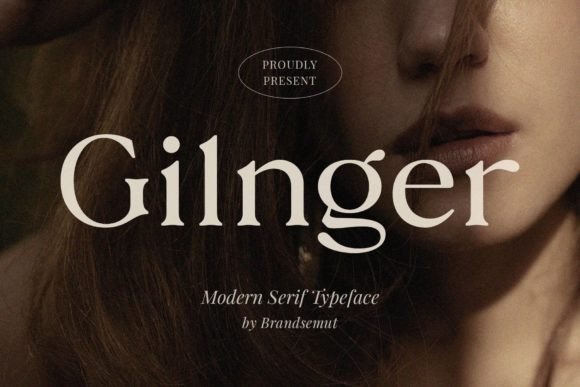
Unleash Your Creativity with the Timeless Gilnger Font
Have you ever found yourself staring at a blank page, waiting for the perfect font to bring your design to life? For many creatives, that moment is a familiar one. It’s the moment when everything comes together, and the right font is the missing piece that takes your design from good to great.
Enter Gilnger Font, a stylish and elegant serif font that’s perfect for creating stunning visual content. Whether you’re designing wedding invitations, social media posts, or beautiful stationery art, Gilnger Font is the perfect choice. Its versatility and timeless style make it a valuable asset for any designer looking to elevate their work.
With Gilnger Font, you’ll have the freedom to express your creativity and bring your vision to life. Its elegant design and wide range of applications make it an essential tool for any designer looking to take their work to the next level.
Gilnger Font Key Features
- Unique Characteristics: Gilnger Font features a distinctive, modern design with clean lines and geometric shapes, making it ideal for minimalist and contemporary designs.
- Character Set: Includes a wide range of characters, including uppercase and lowercase letters, numerals, punctuation marks, and special characters.
Gilnger Font Review
I recently had the chance to work with the Gilnger font, and I must say it’s a unique and intriguing choice. Here’s my honest review of this font.
- The Gilnger font has a great balance of modernity and elegance, making it suitable for a wide range of design projects.
- The font is highly customizable, with many variations in terms of style and weight.
- The character set is comprehensive, including all the necessary symbols and glyphs.
- The font is highly legible, even at small sizes.
- The Gilnger font may be too avant-garde for some designers, and its unconventional design may not appeal to everyone.
- The font may not be suitable for projects that require a more traditional or conservative look.
- The font is not ideal for body text, as its unique style may be overwhelming in large quantities.
The Gilnger font is a bold and innovative choice that can add a touch of sophistication to any design project. While it may not be suitable for every project, it’s definitely worth considering for those who want to make a statement. Overall, I’d give the Gilnger font 4 out of 5 stars.
Tips for Getting the Most Out of Gilnger Font
To get the most out of the Gilnger font, use it in combination with bold or italic styles to add emphasis. You can also use it in conjunction with other fonts to create a unique and visually appealing design.
The Gilnger font is ideal for:
- Modern branding and logo design
- Editorial and publishing projects
- Corporate and business presentations
Alternatives to Gilnger Font for Designers
Great Vibes Font is a modern script font that is perfect for creating a friendly and approachable tone. It is ideal for use in logos, headings, and body text where a casual and relaxed feel is desired.
Comparison to Gilnger Font: Great Vibes Font has a similar script feel to Gilnger Font, but with a more relaxed and casual tone. It is also more versatile and can be used in a wider range of design applications.
Carolyna Pro Font is a modern sans-serif font that is perfect for creating a clean and sophisticated look. It is ideal for use in corporate branding, advertising, and editorial design where a professional and modern feel is desired.
Comparison to Gilnger Font: Carolyna Pro Font has a more modern and sleek feel compared to Gilnger Font, which is more script-based. Carolyna Pro Font is also more versatile and can be used in a wider range of design applications.
We recommend using the Gilnger Font at a minimum font size of 12pt and a line height of 1.5 to 2 times the font size. This will ensure optimal readability and legibility, especially in digital environments.